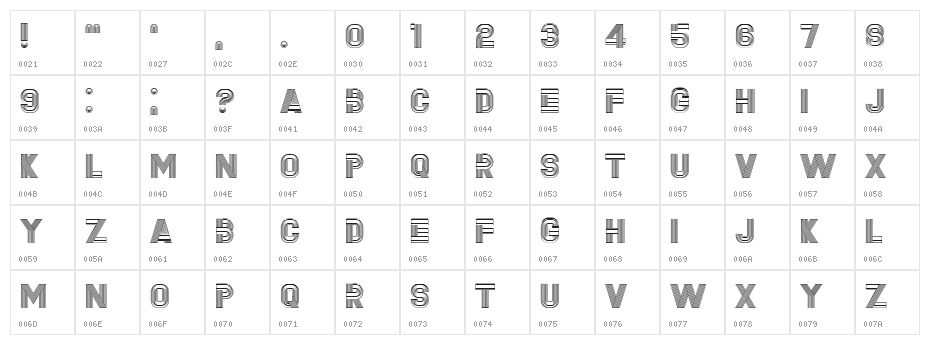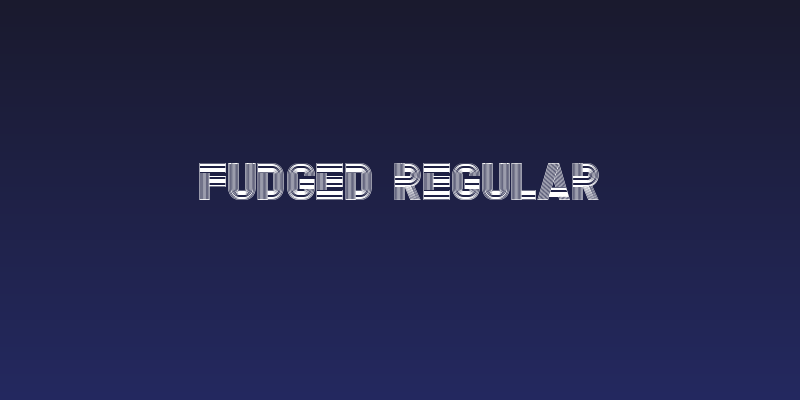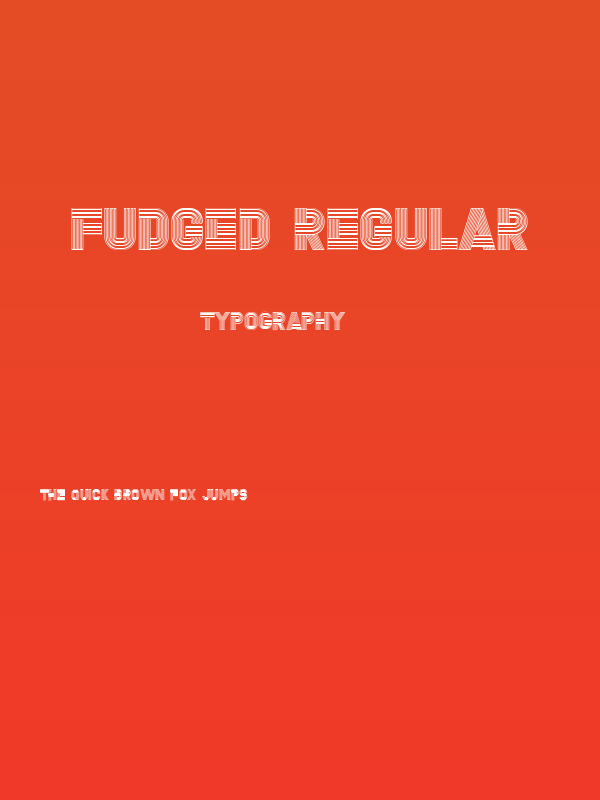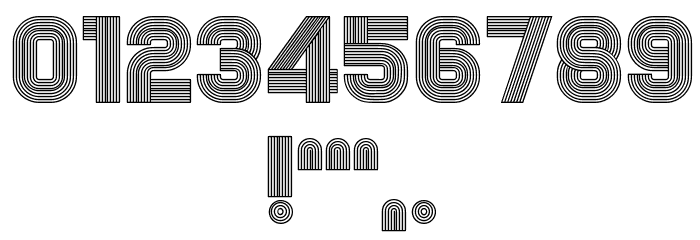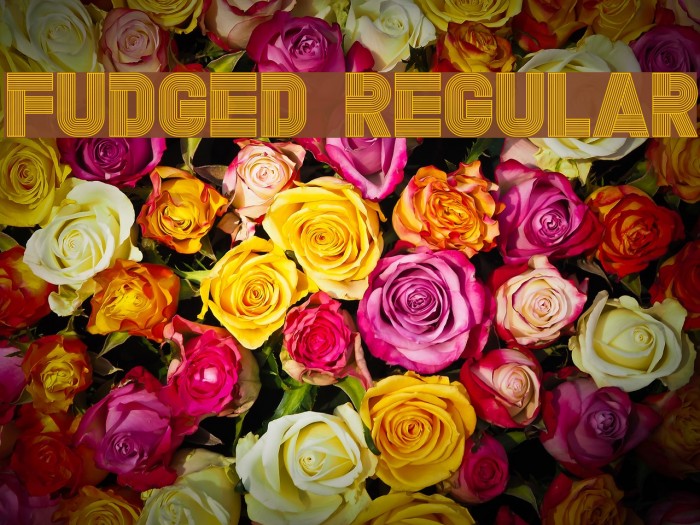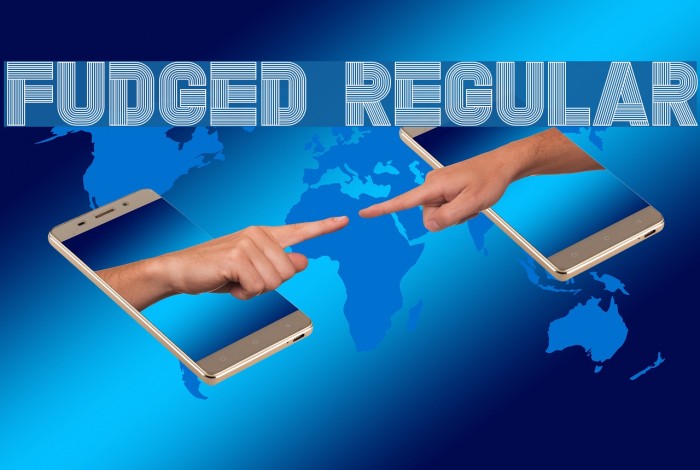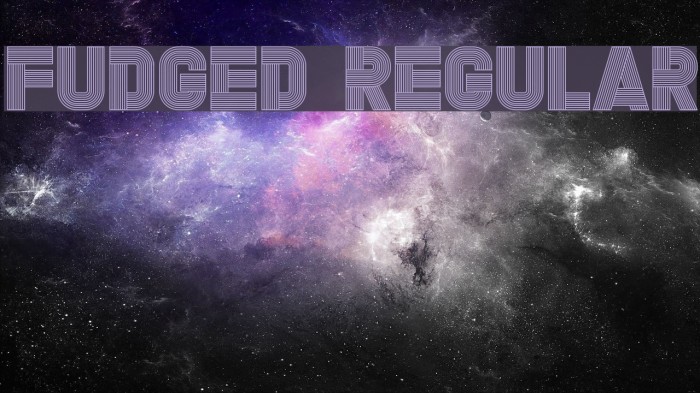
Fudged Regular Font
Fudged Regular Description
This font features a unique and striking design with multiple parallel lines forming each character, creating a layered and dimensional effect. The uppercase letters are bold and geometric, while the lowercase letters maintain the same multi-line style, offering consistency across the typeface. Numbers and special characters follow the same design principle, ensuring a cohesive look. The intricate line work gives the font a modern and artistic flair, making it ideal for eye-catching designs.